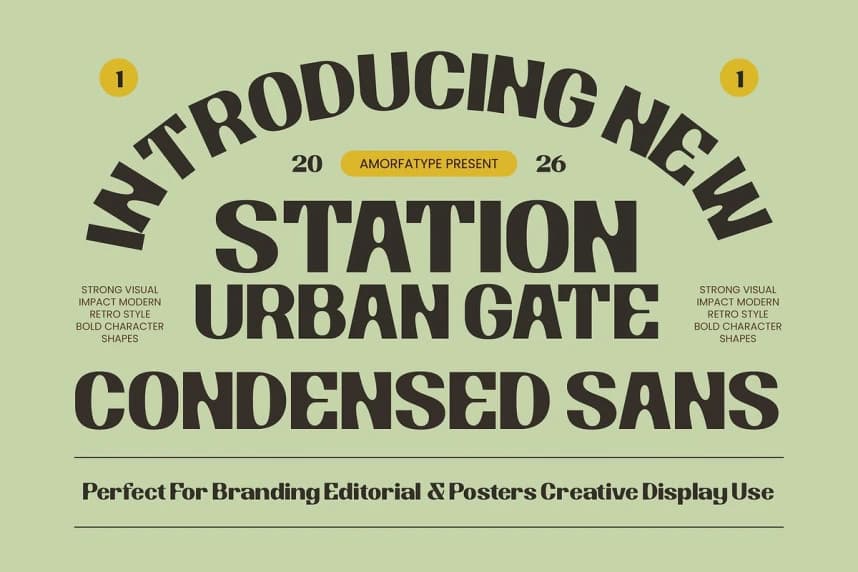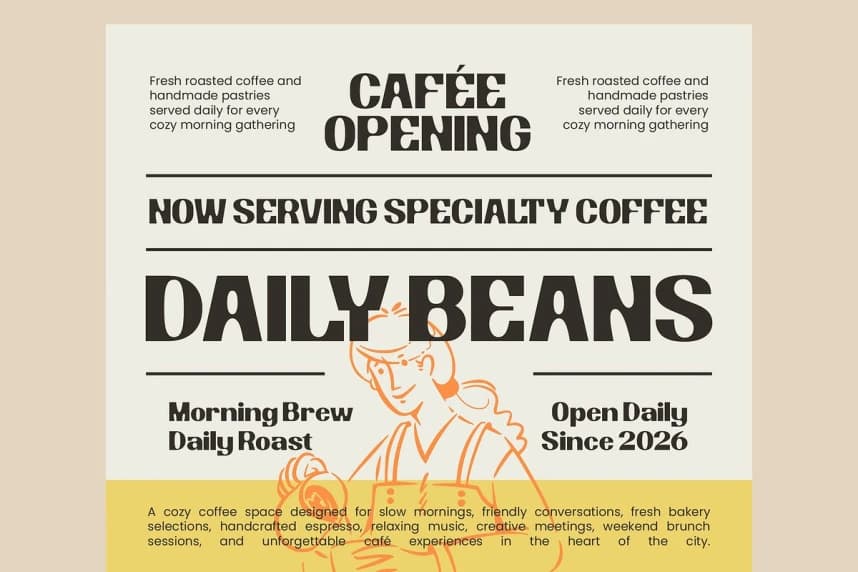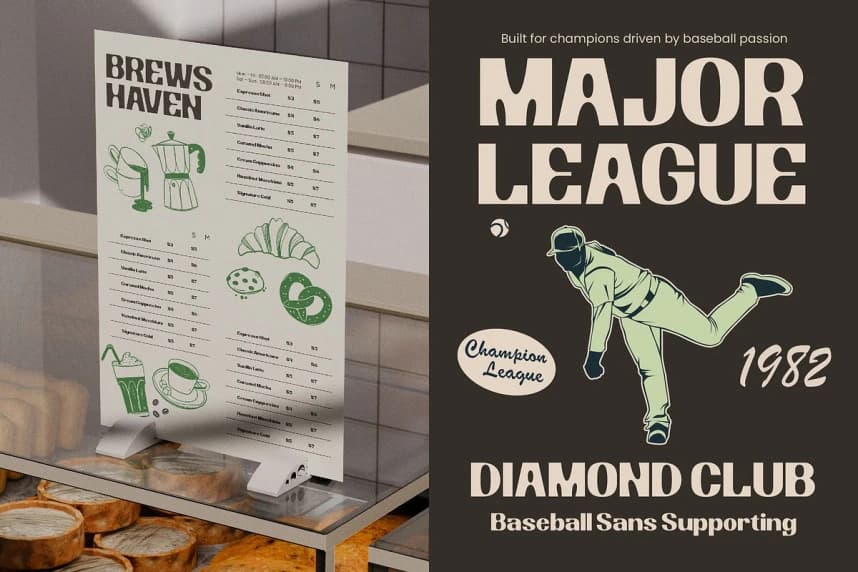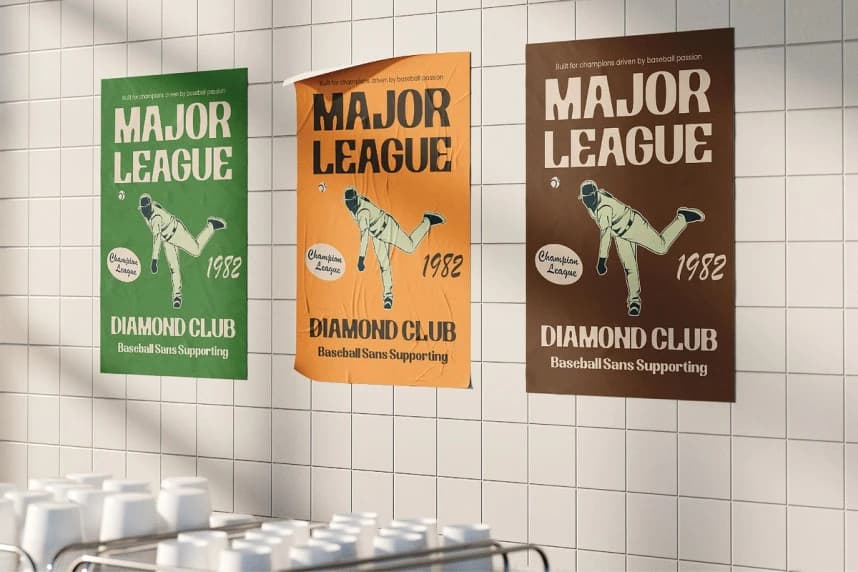
Station Urban Gate Font
Station Urban Gate Font is a bold condensed sans serif display font designed with strong urban character, retro athletic influence, and impactful headline proportions. Combining vintage condensed typography with modern street-inspired aesthetics